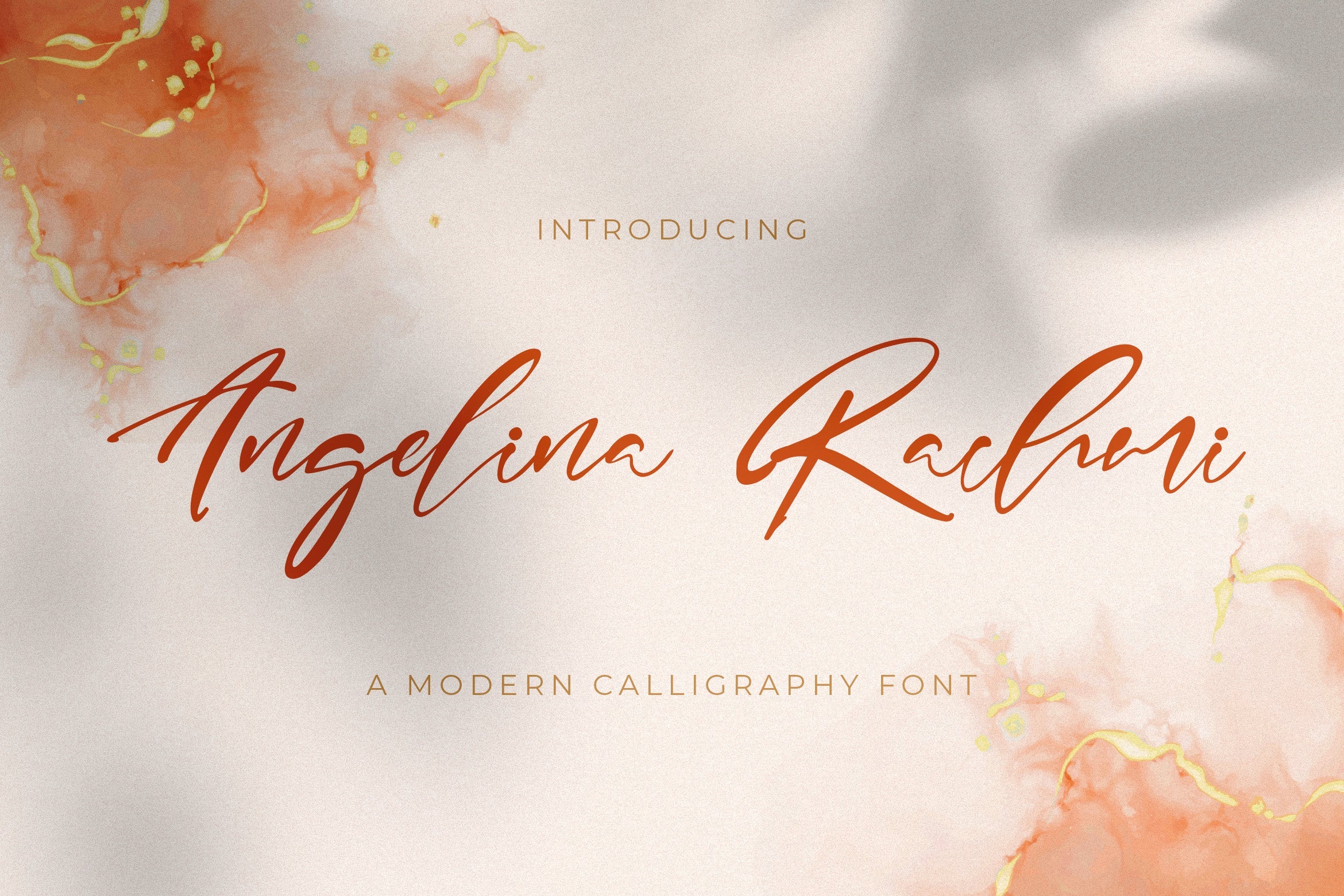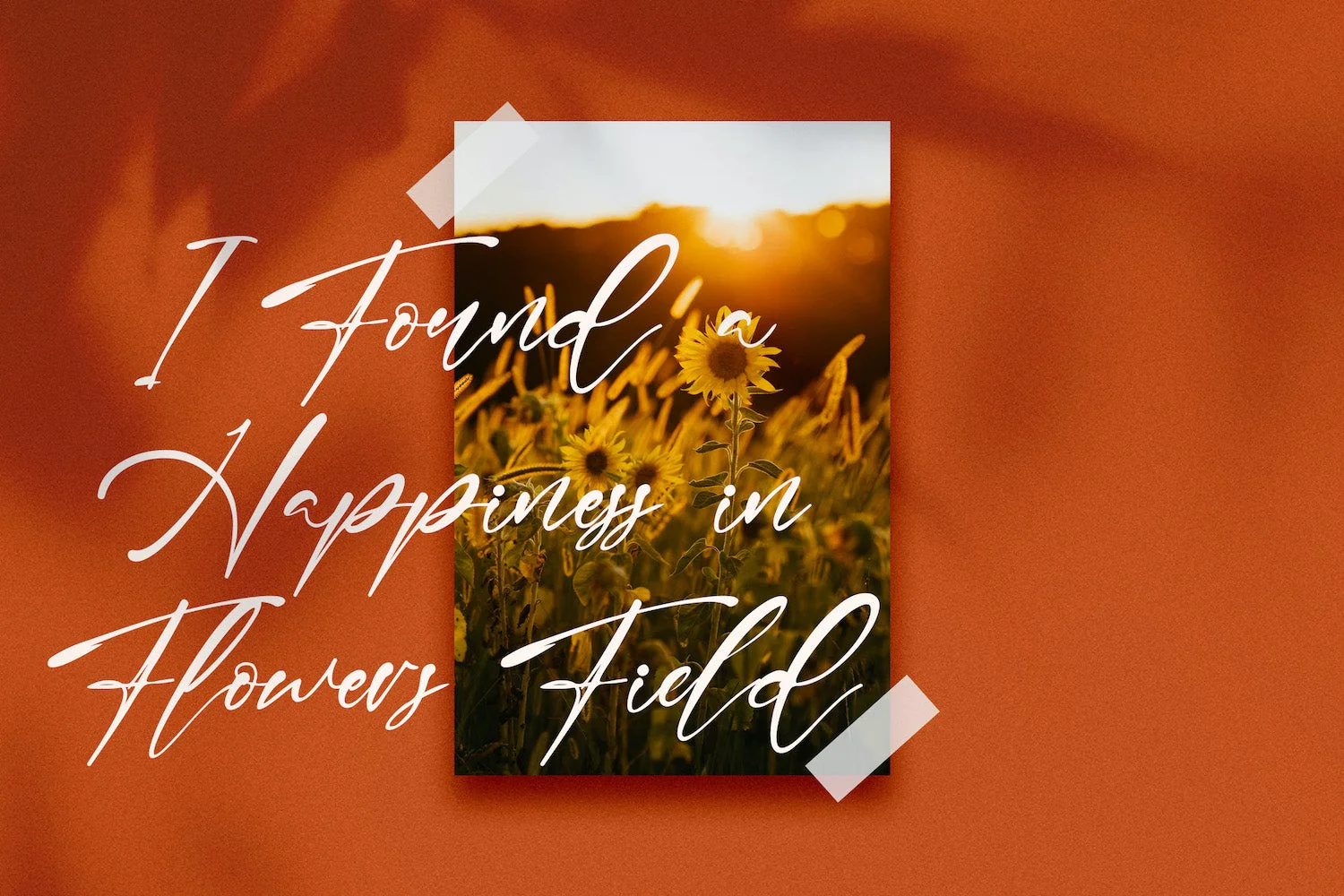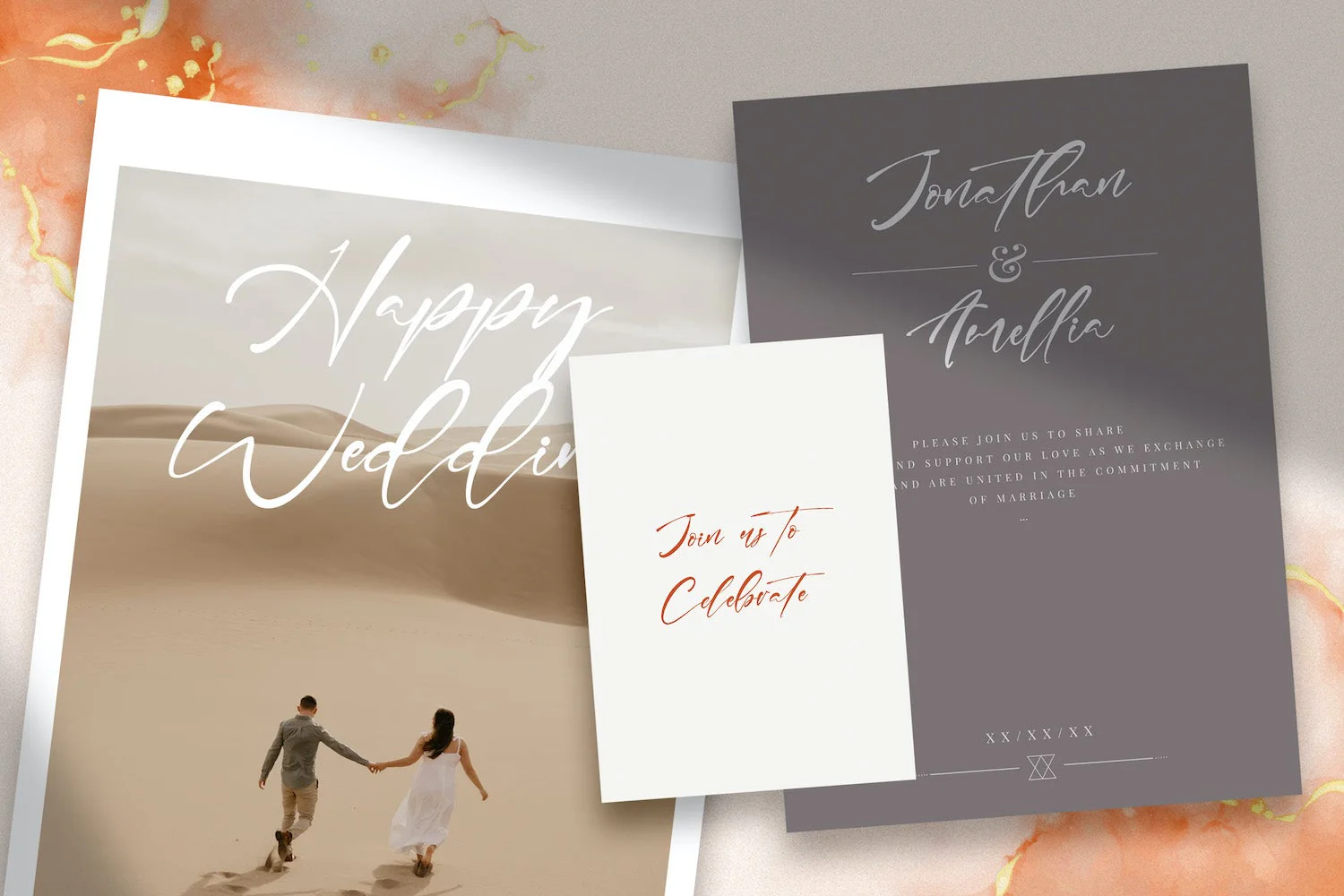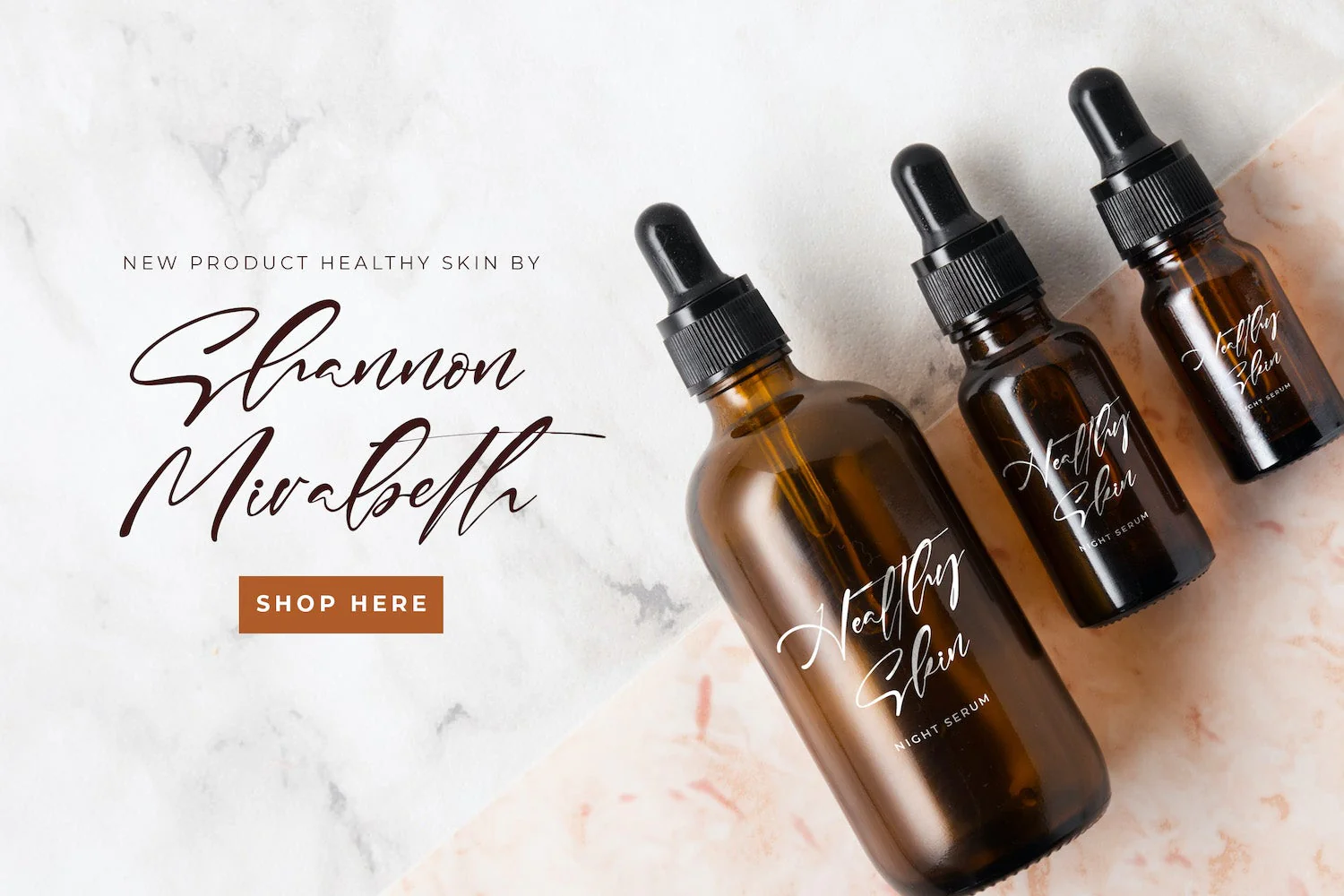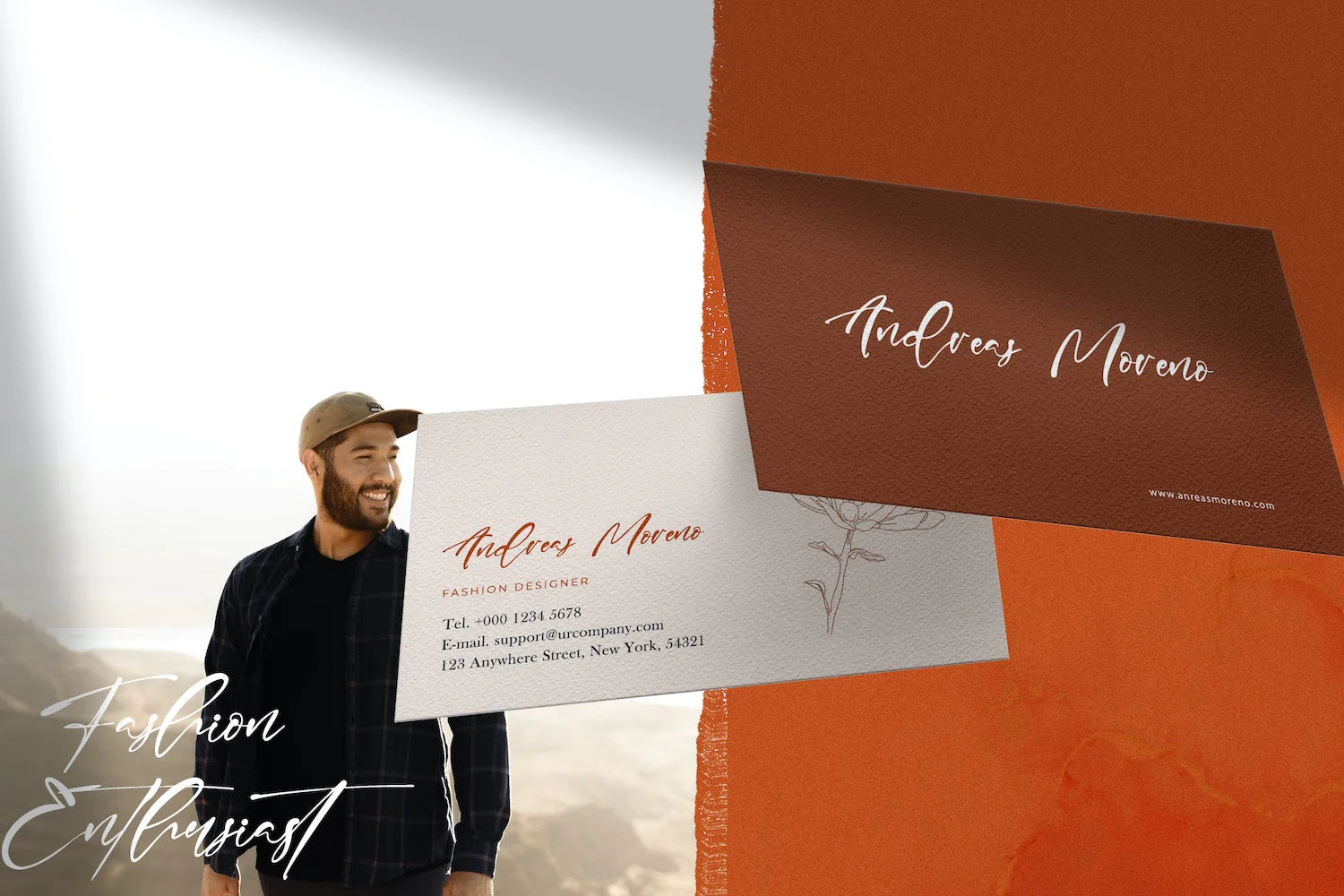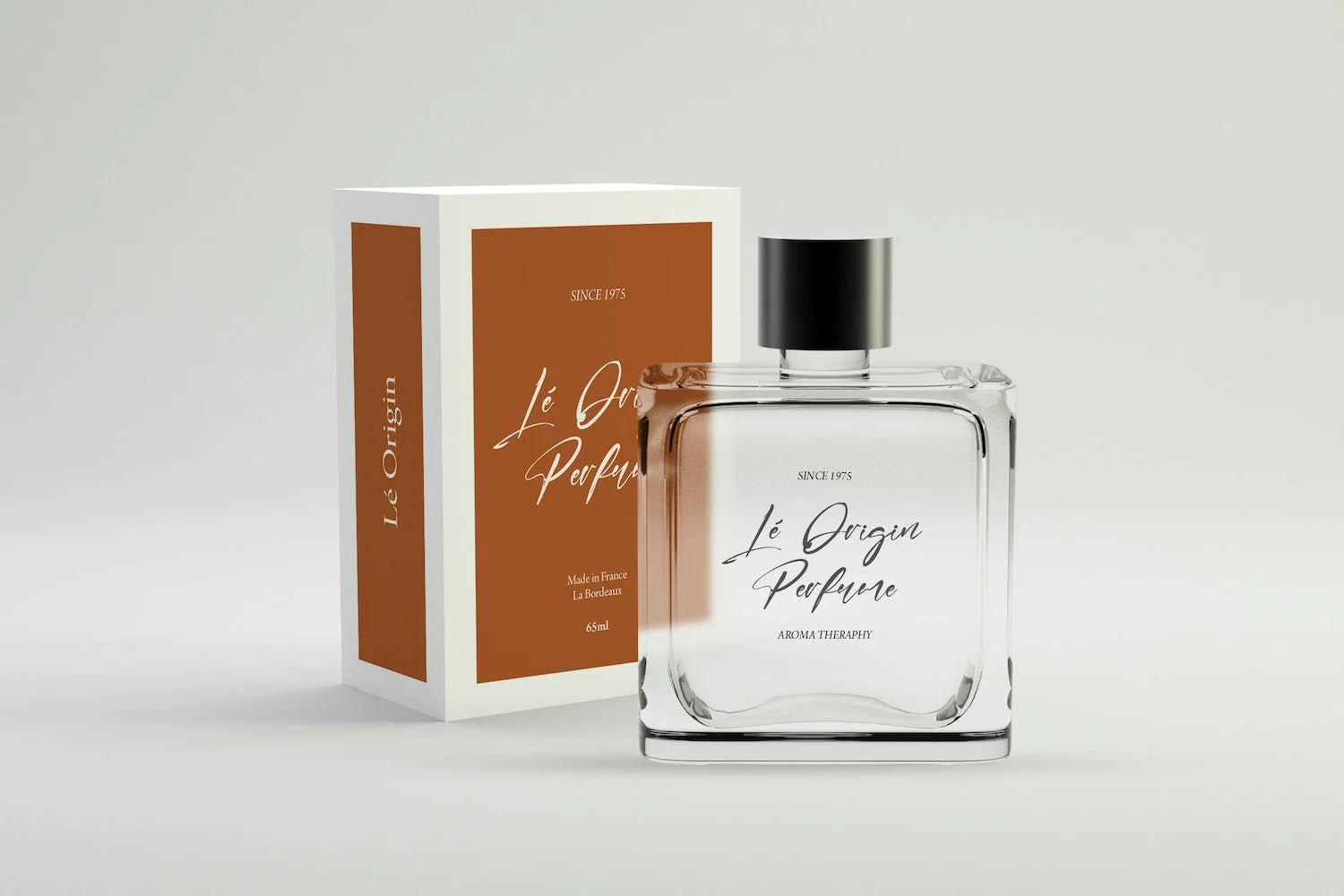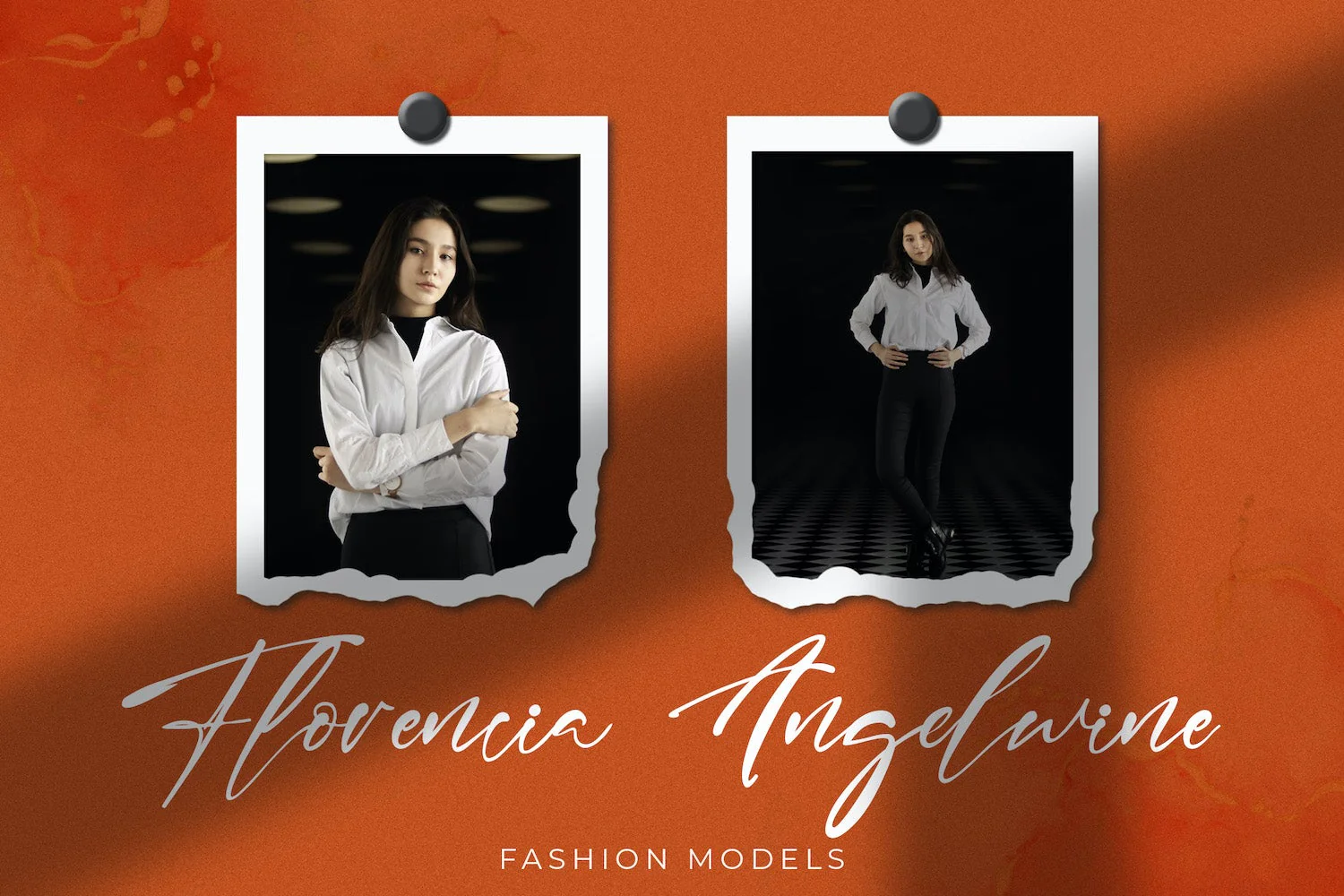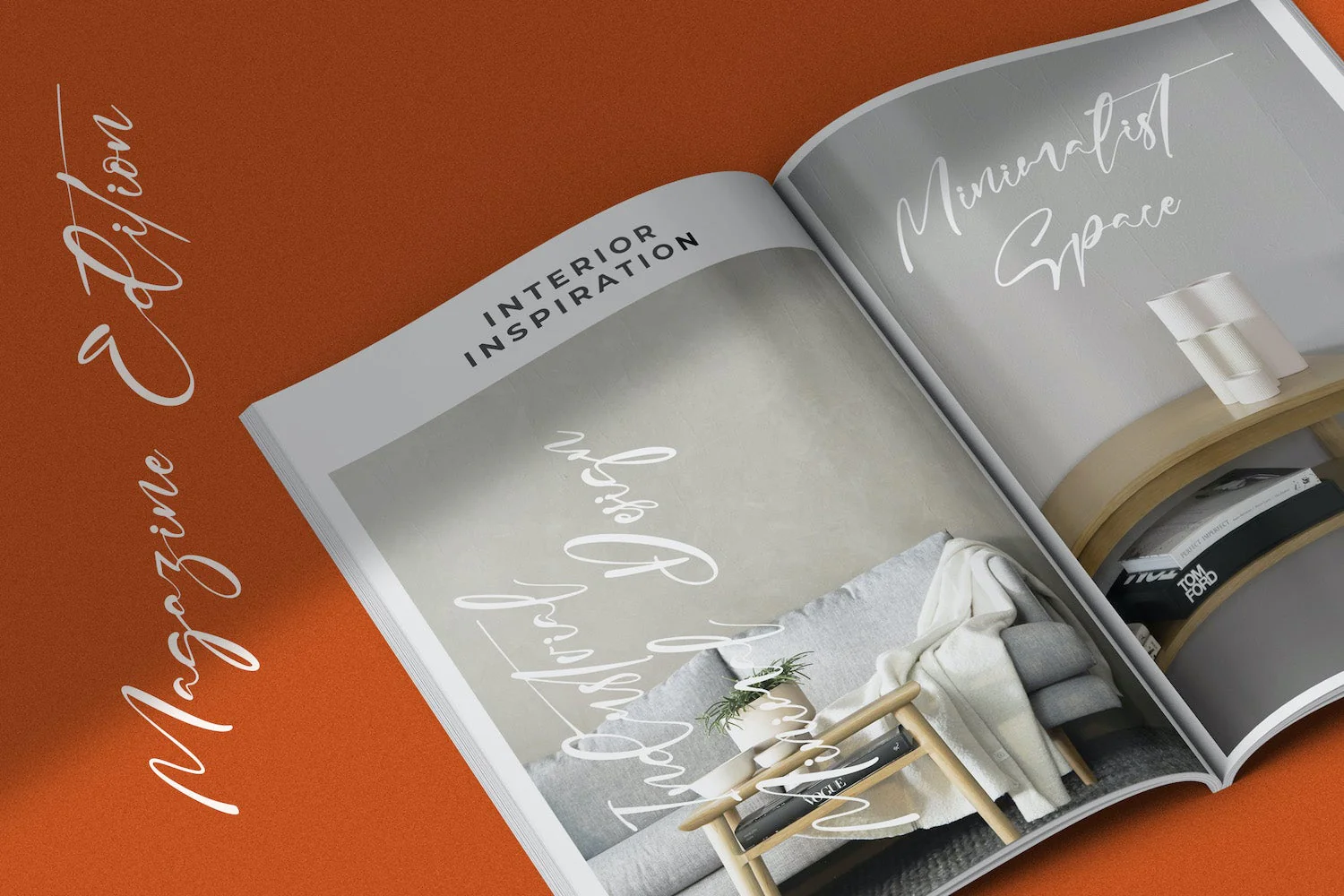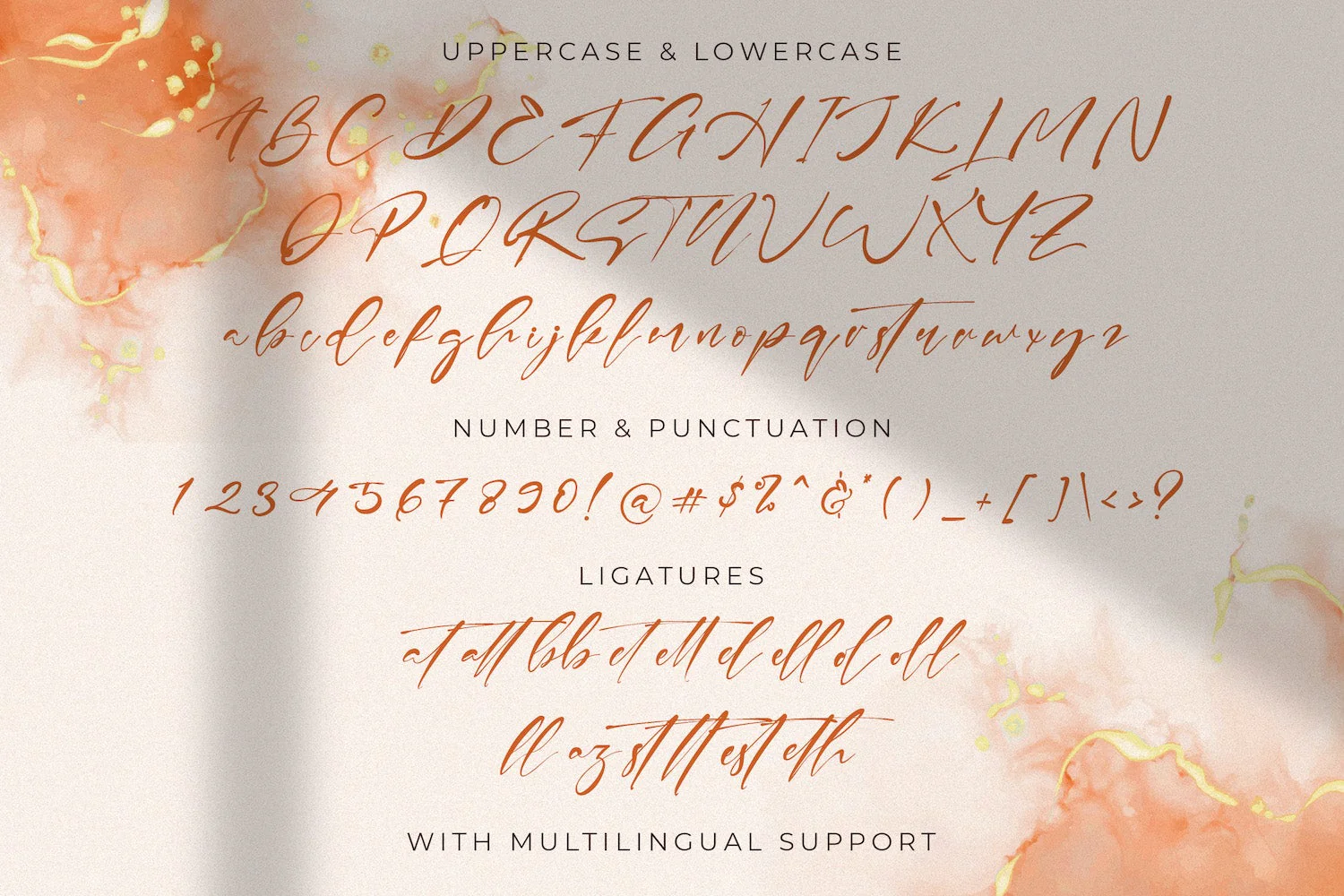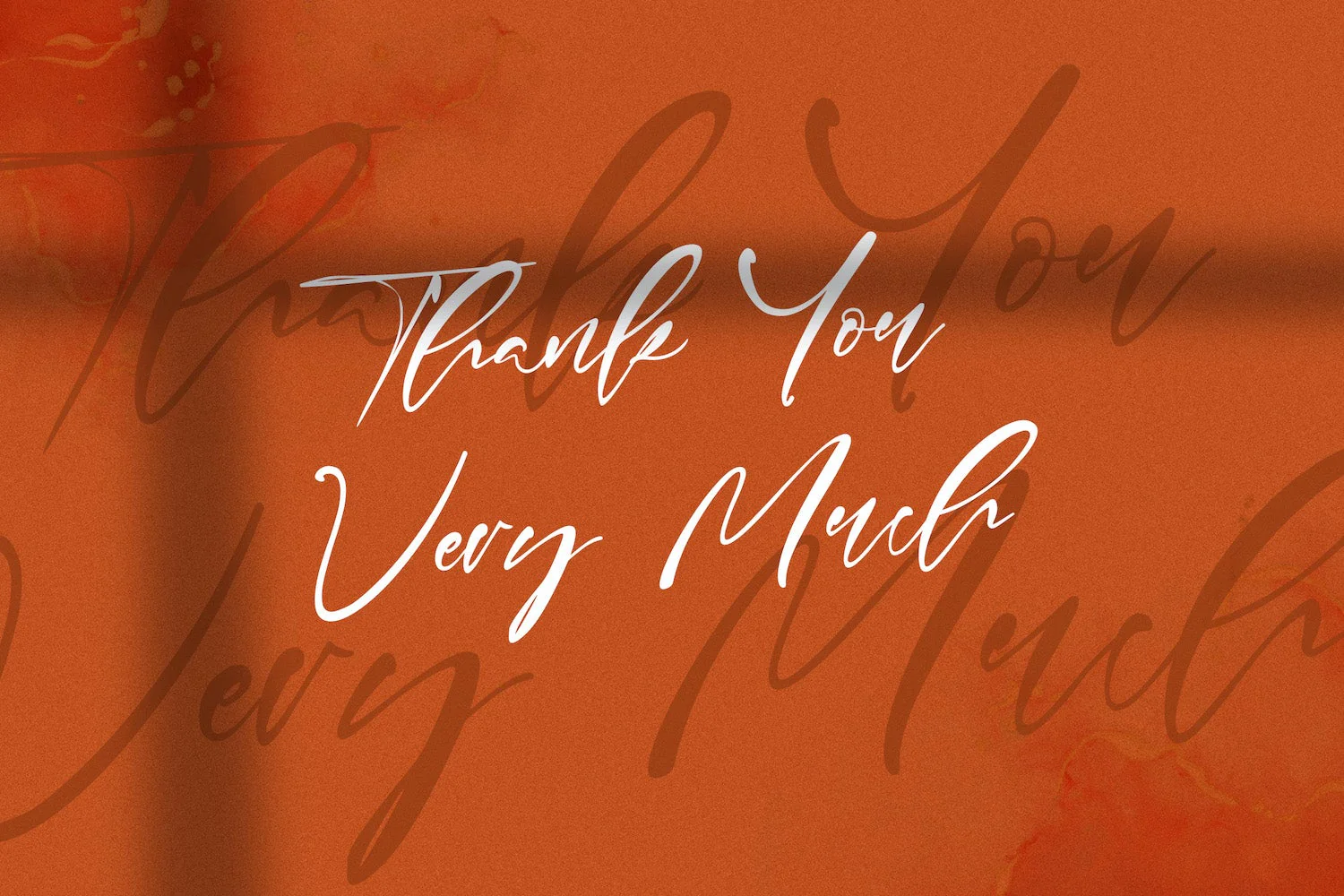
Angelina Rachmi - Calligraphy Font
Introducing Angelina Rachmi - Calligraphy Script Font
Angelina Rachmi is an exquisite handwritten font, masterfully designed to become a true favorite. It maintains its classy calligraphic influences while feeling contemporary and fresh. Fall in love with it and bring your projects to the highest levels!
Introducing Angelina Rachmi - Calligraphy Script Font
Angelina Rachmi is an exquisite handwritten font, masterfully designed to become a true favorite. It maintains its classy calligraphic influences while feeling contemporary and fresh. Fall in love with it and bring your projects to the highest levels!